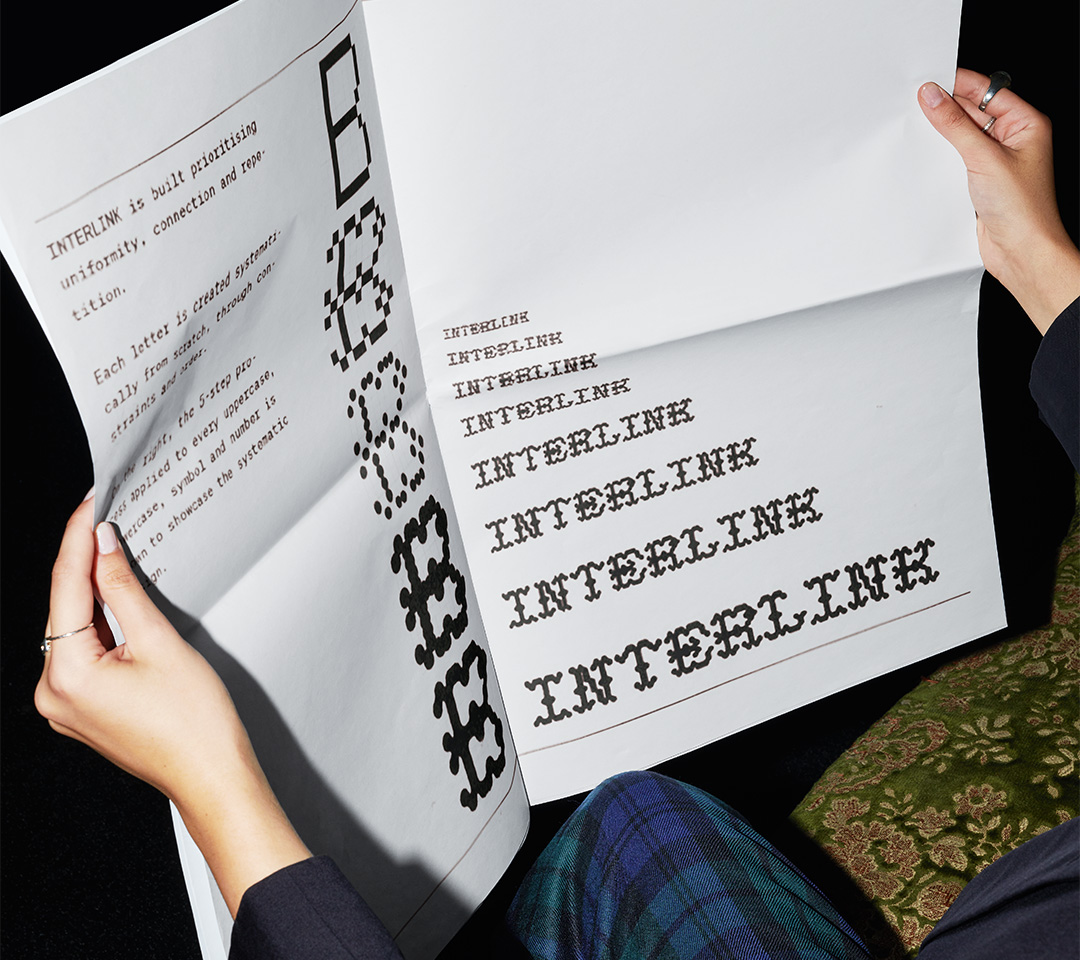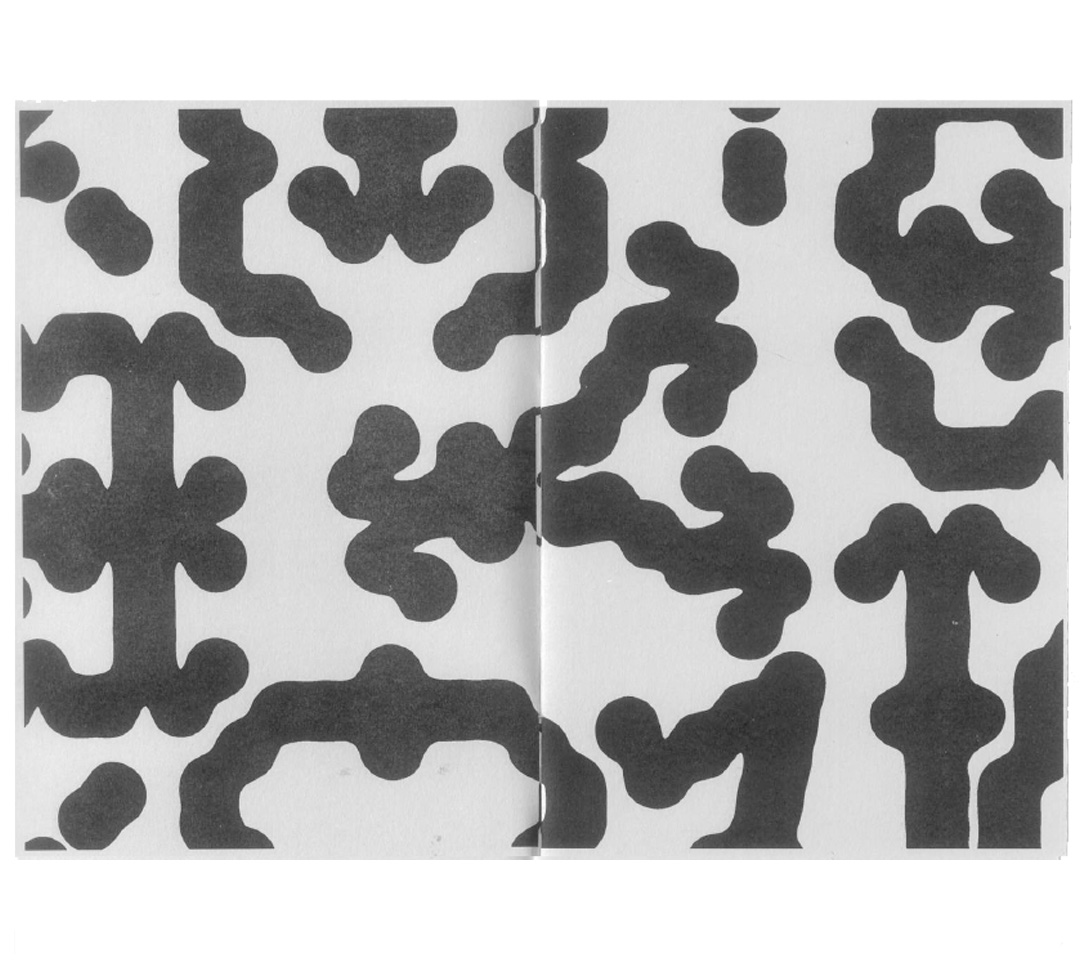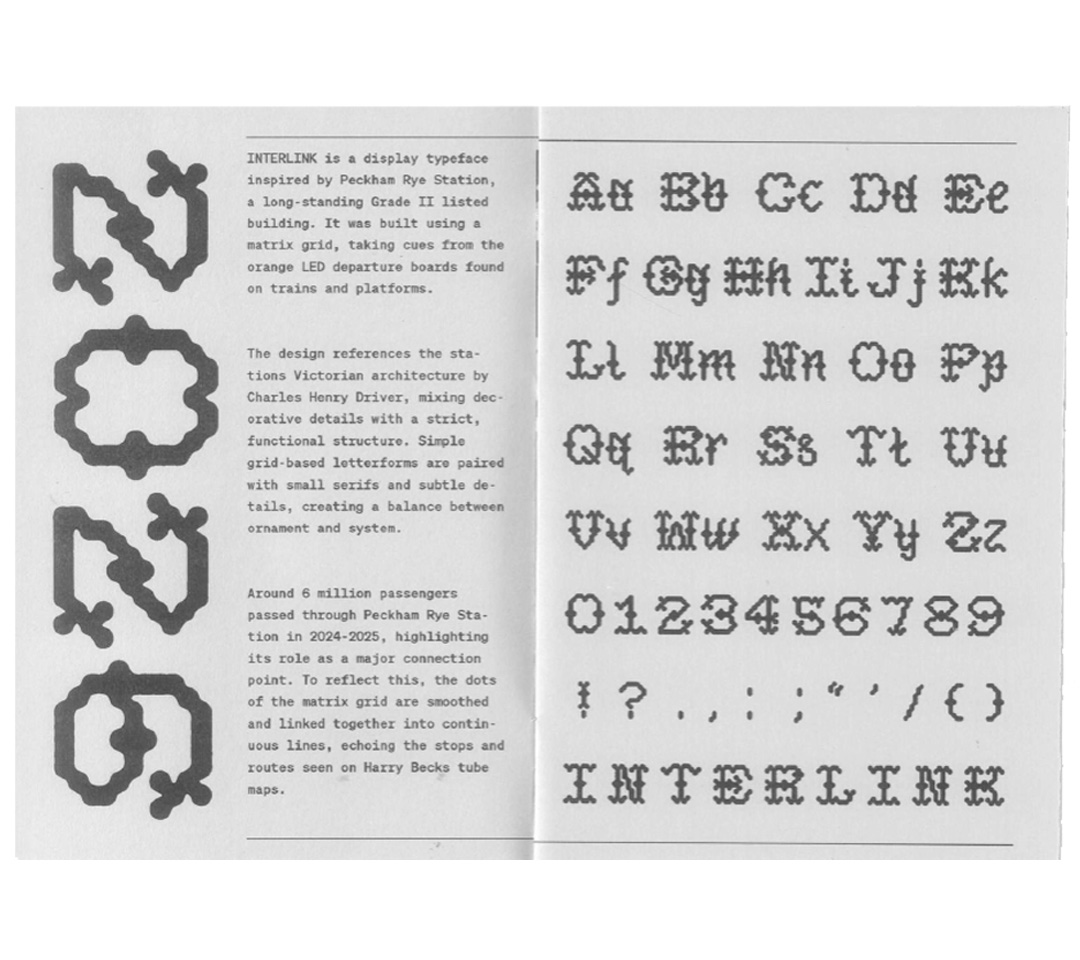
Interlink is a display typeface inspired by Peckham Rye Station, a long-standing Grade II listed building. Interlink was built using a matrix grid, taking inspiration from the orange LED departure boards found on trains and platforms. The design references the station's ornate Victorian architecture through blooming serifs and decorations mirrored from the cast-iron railings on the station. Around 6 million passengers passed through Peckham Rye Station in '24-'25, highlighting its role as a major connection hub. To reflect this, the dots of the matrix grid are smoothed and linked together into connected lines, echoing the stops and routes seen on Harry Becks tube maps and the central theme of connection.